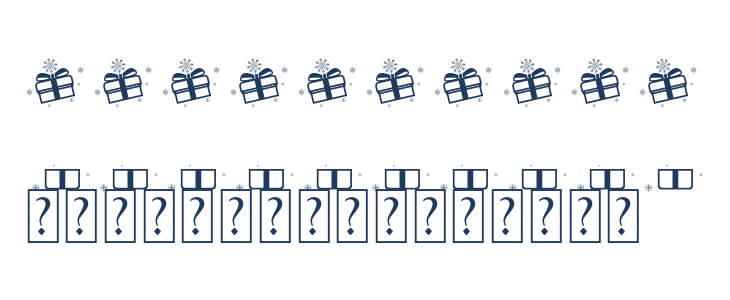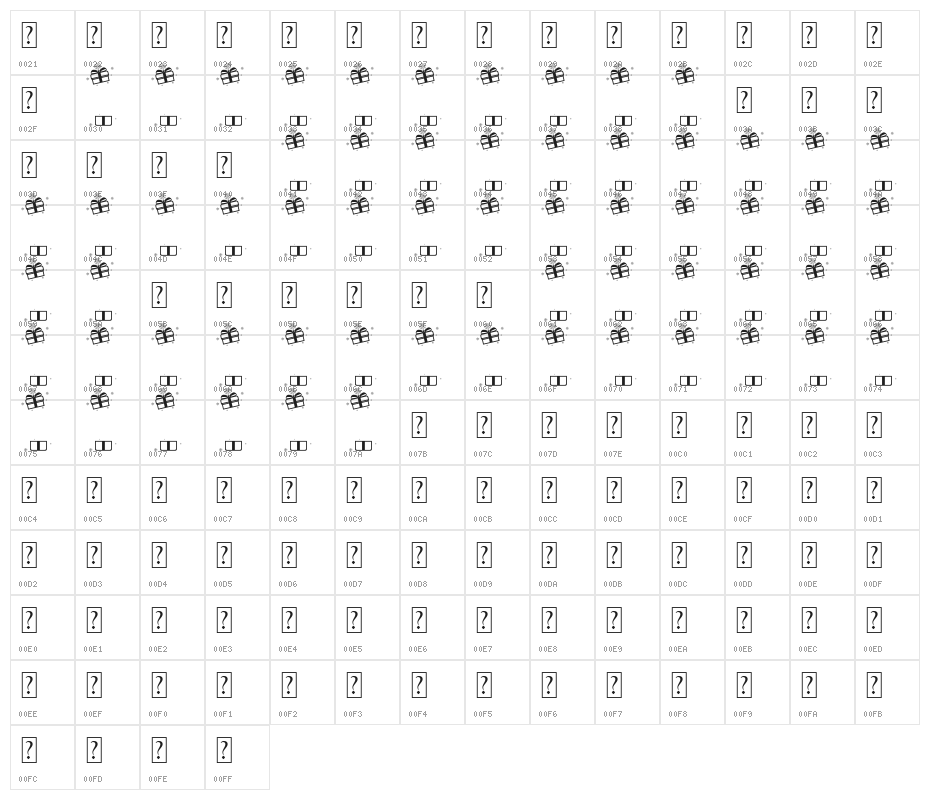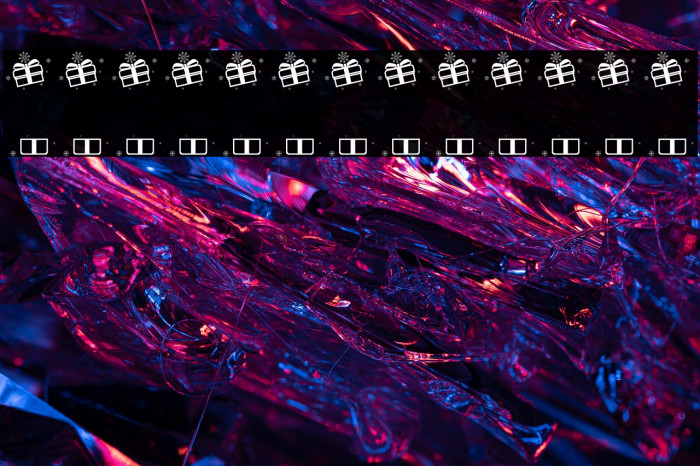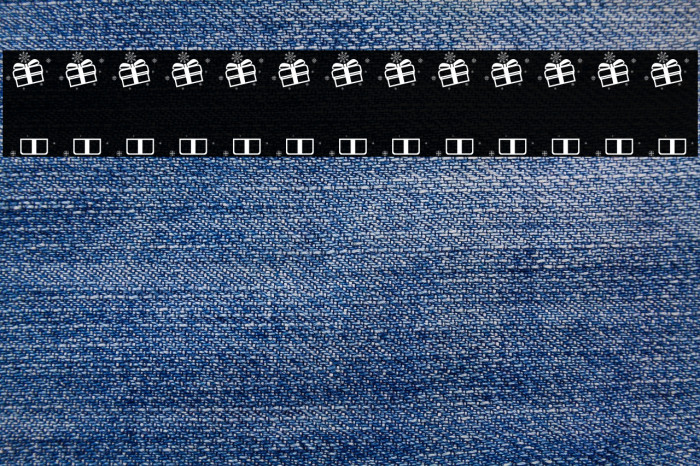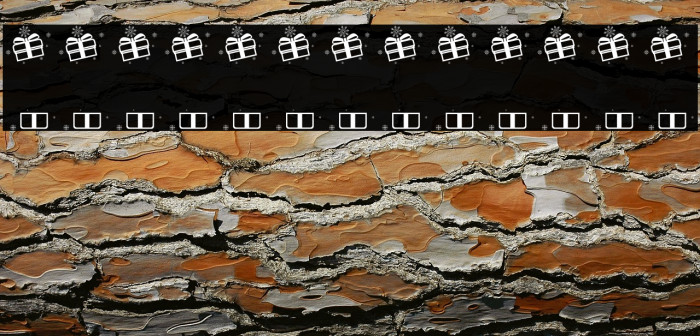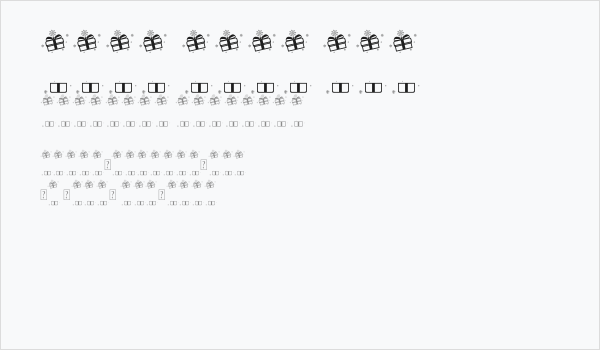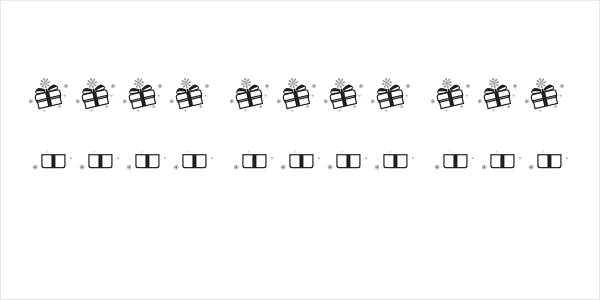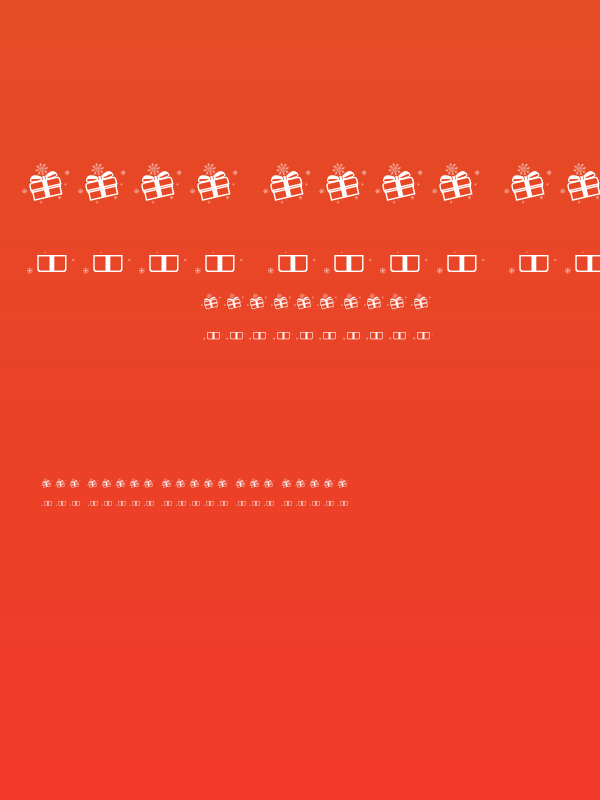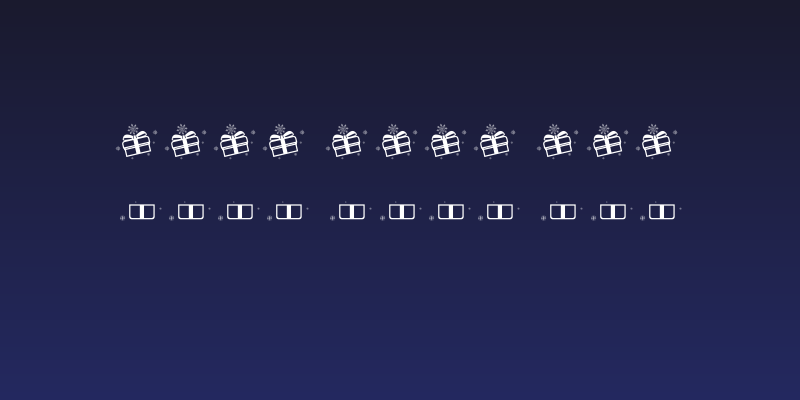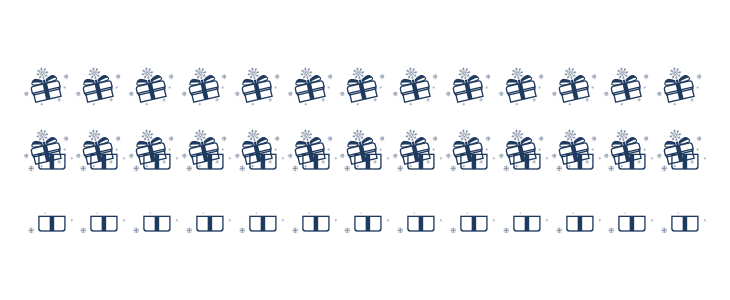
Snow Boom Box Font
Snow Boom Box Description
This is not a valid font. The image contains repetitive patterns of gift boxes and boom boxes, arranged in a grid-like fashion. Each row alternates between these two symbols, creating a playful and festive visual. The elements are consistent in size and style, emphasizing a decorative and thematic approach rather than a functional typeface. The overall design suggests a theme of celebration or music, but it does not provide any alphabetic or numeric characters typically found in a font.
| Use Case | Decorative graphics, Thematic designs |
| Proposed Projects | This design could be used for decorative purposes in holiday-themed graphics, party invitations, or festive event posters. |